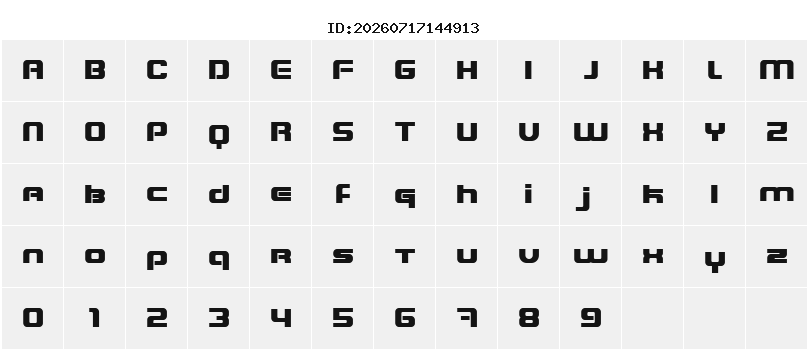
Blaster Infinite Preview
• Font Name: Blaster Infinite
• Full Font Name: Blaster Infinite
• Designer: Andreas Nylin
About Blaster Infinite.ttf
Blaster Infinite.ttf is a modern, elegant sans-serif font designed for ultimate readability and visual harmony. Perfect for branding, headlines, web design, and print materials.